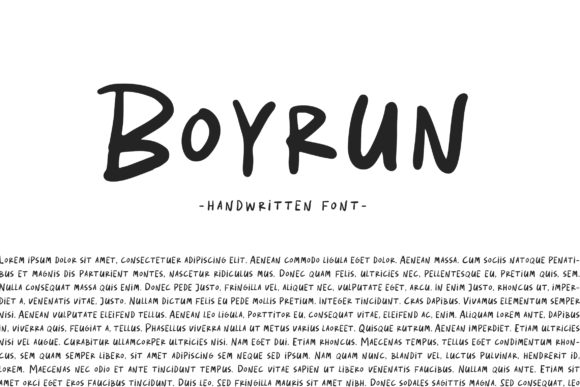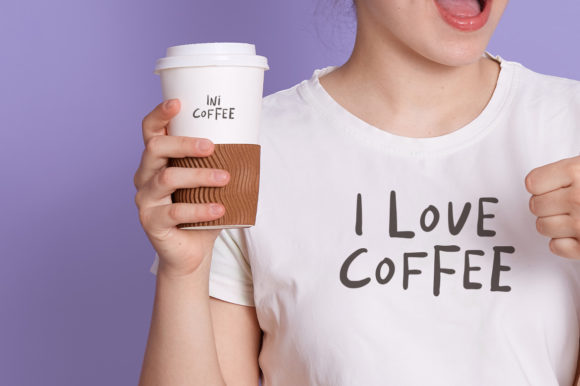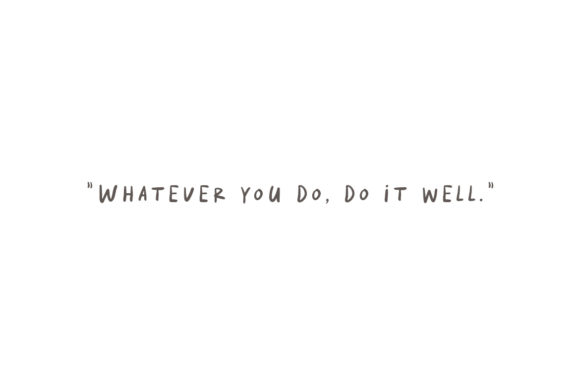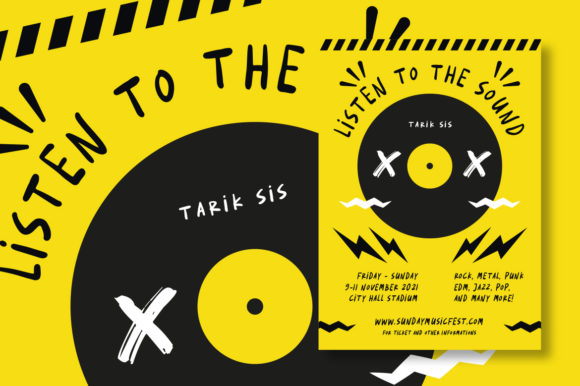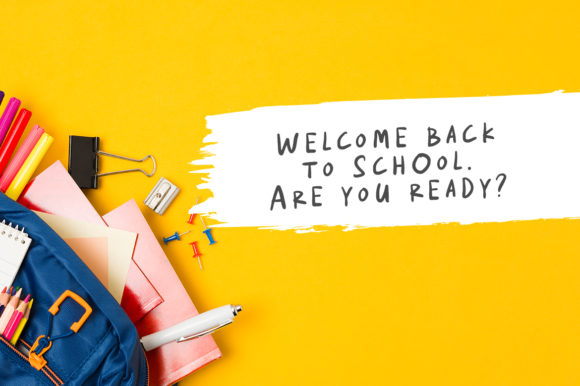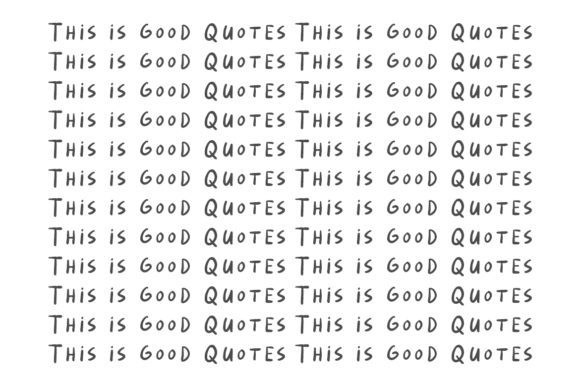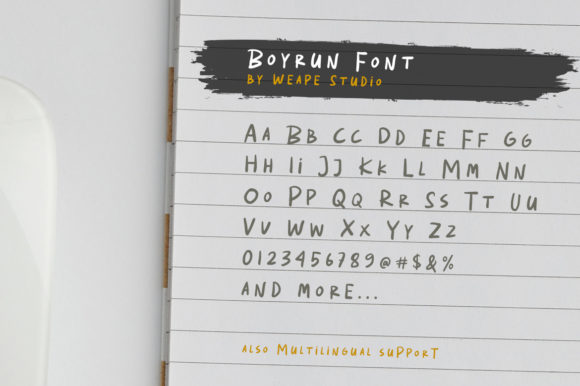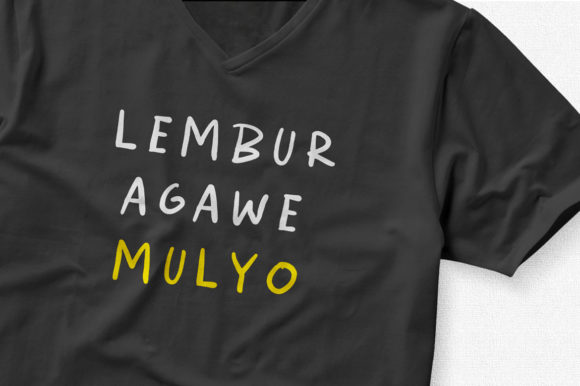
Boyrun Font
About Boyrun Font
Boyrun is a natural handwritten font that will put a fun twist on your next design project. Have fun combing the uppercase and lowercase letters together for an authentic design.